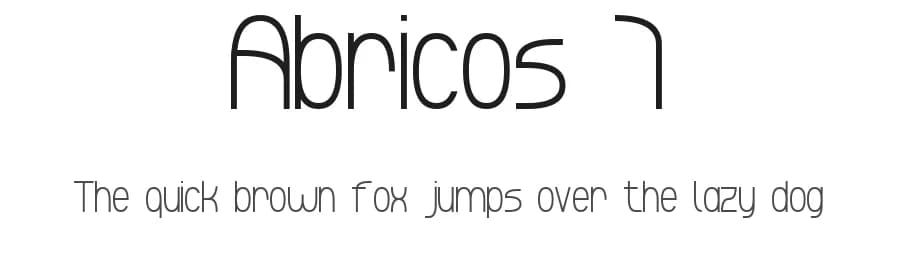
About Abricos 7 Font
Abricos 7 is a straightforward sans-serif typeface from Style-7 designed for clean, functional typography across multiple languages and regions. With 218 glyphs and support for 216+ Latin-based languages, this basic sans serif accommodates truly global projects without unnecessary stylistic flourishes or decorative elements.
The font works consistently well for digital and print applications where clarity and readability matter most. Designers use it for website body copy and user interface elements, making it particularly suitable for app interfaces, dashboard labels, and software UI design. Social media graphics benefit from its legibility at various sizes, while printed materials like brochures, flyers, and posters look professional and polished with its minimal aesthetic. For personal projects including DIY greeting cards, wedding programs, and vinyl cut designs, Abricos 7 delivers consistent letter shapes and reliable spacing.
Abricos 7 Specifications
| Glyph Count | 218 glyphs |
Abricos 7 supports 216 languages.
Abricos 7 Font is a versatile sans-serif font that works for both headings and body text. Pair it with a contrasting serif or slab serif font to add visual interest and a clear distinction between titles and body copy.